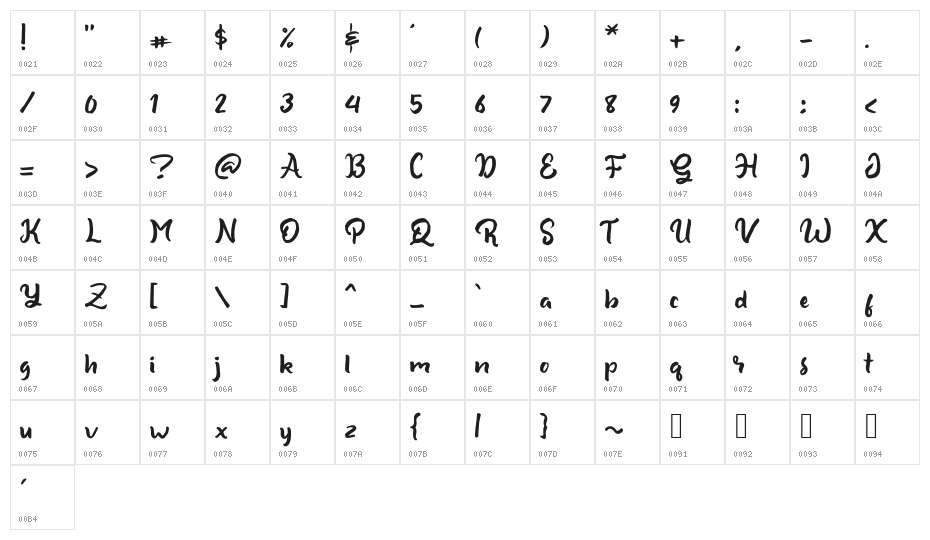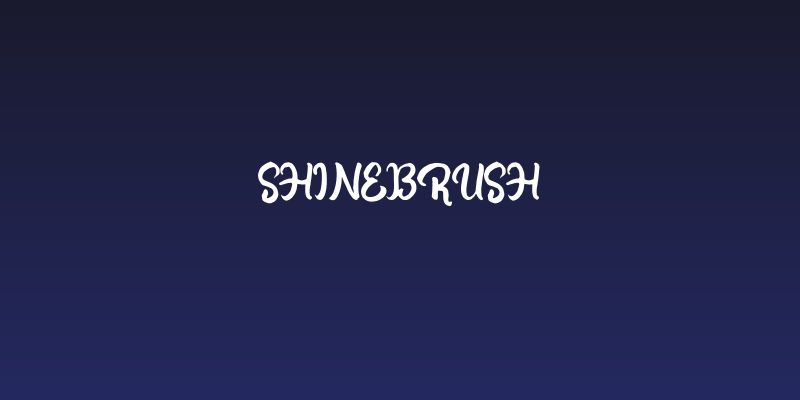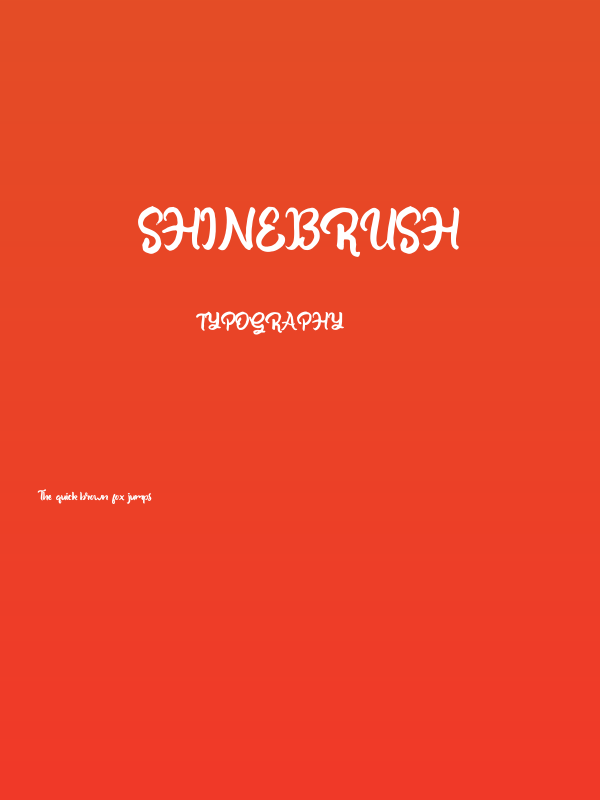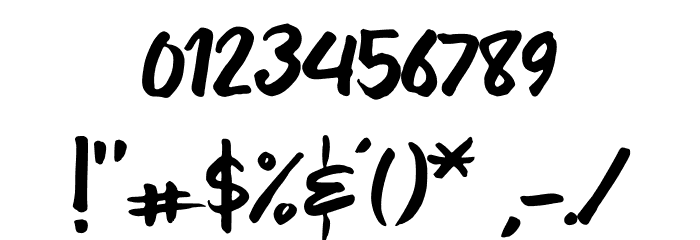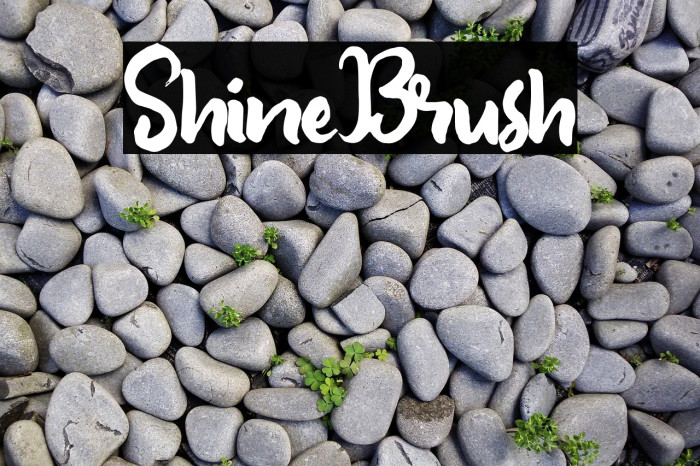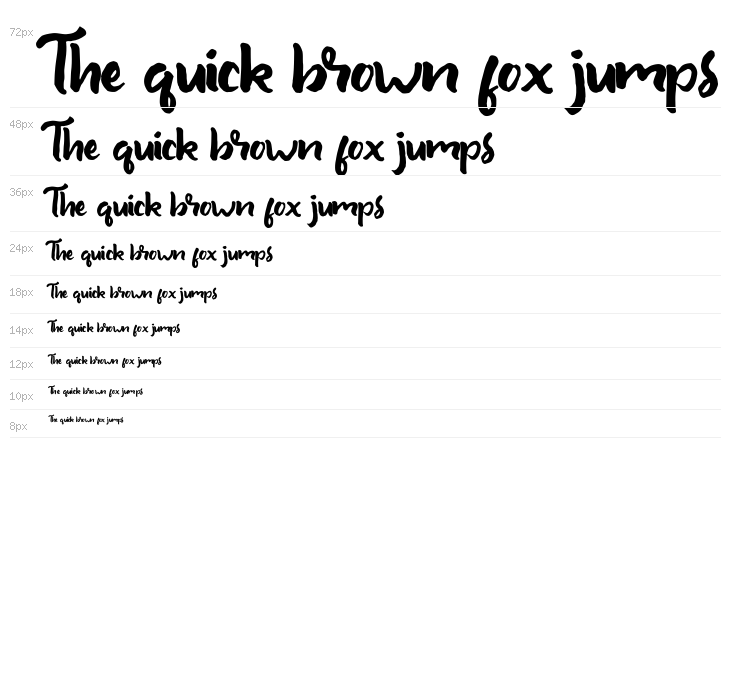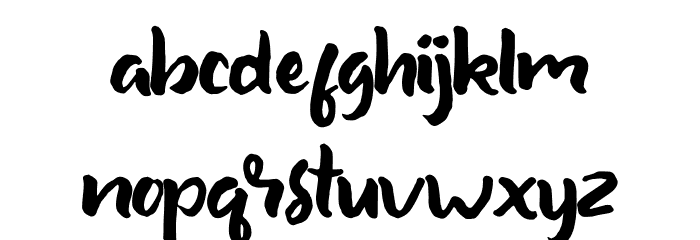
ShineBrush Font
ShineBrush Description
This font features a bold, brush-like script that exudes a sense of artistic flair and creativity. The characters are fluid and dynamic, with a hand-drawn appearance that adds a personal touch to any design. The uppercase letters are slightly more structured, while the lowercase letters maintain a consistent flow, enhancing the font's overall cohesiveness. Numbers and special characters are crafted with the same attention to detail, ensuring versatility across various applications. The font's organic strokes and varying line thicknesses give it a lively and energetic feel, making it ideal for projects that require a touch of elegance and spontaneity.